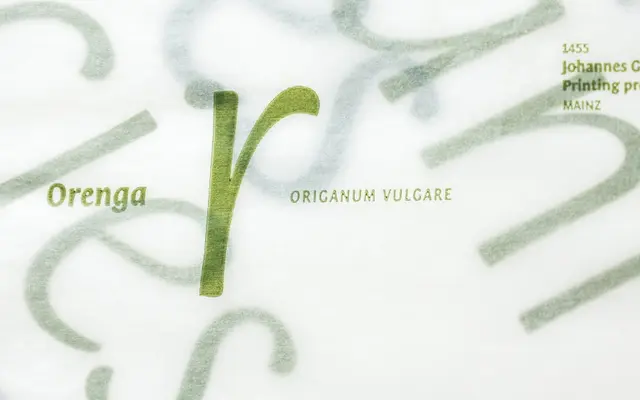
Orenga
Tipografies · Jordi Embodas · 2008
A narrow calligraphic sans by Jordi Embodas that blends Mediterranean character with Dutch letterform influences, suited to both display and text use.
Designed in 2008 by Jordi Embodas, Orenga pairs flared stems and subtly bulging stroke endings with a narrow footprint and large x-height, making it functional at small sizes while remaining characterful at display scales. Nine styles run from Light to Black with matching italics, and the character set includes small caps, oldstyle figures, alternates and a broad Latin extended script coverage. The organic quality of the letterforms lends itself to food, environmental and children's publishing, while the structure remains disciplined enough for packaging and branding.
Described explicitly as a calligraphic sans, Orenga features flared stems and subtly bulging stroke endings derived from calligraphic tradition, placing it outside a pure grotesque or humanist category and into a more hand-influenced sans genre.